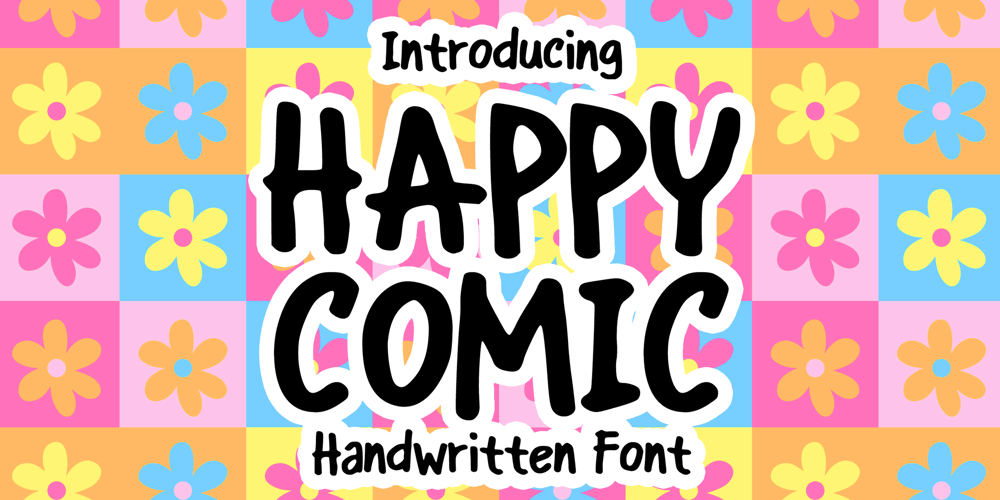
Happy Comic Font Family was designed by Gabriel Valentinus and published by Mvmet. Happy Comic contains 1 styles and family package options. Happy Comic is a versatile and fun to use handwritten comic font. It will elevate a wide range of design projects to the highest level. You can use this font for many design ideas such as stickers, t-shirt designs, amazing logo designs, magazine or book covers, comics, cartoon drawings, daily typing, and many more. This font will add a super cool touch to your designs!